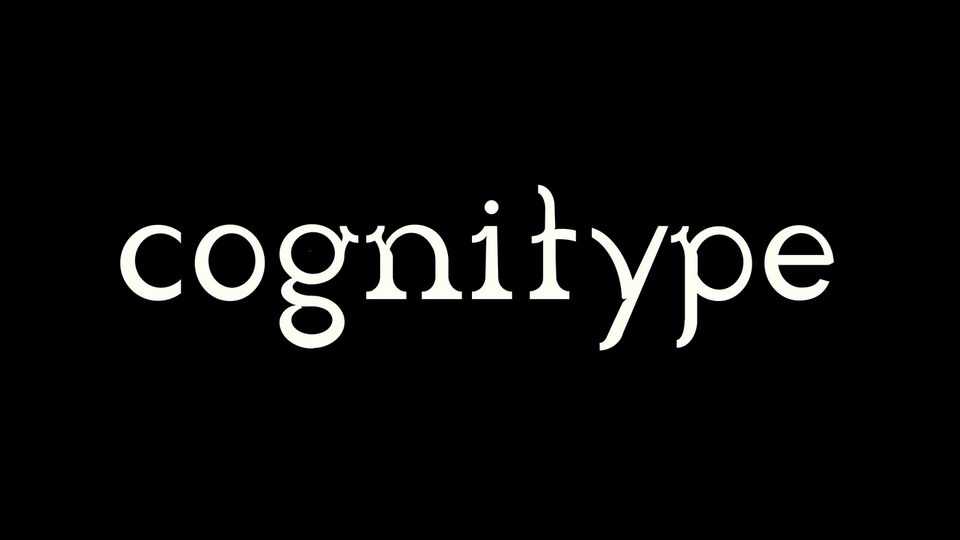
Download Cognitype font, an experimental typeface designed to bring the hyperconnectivity of the letters to its paroxysm, by basing the drawing of letters on various theories.
Designer: Cyril Kimmerlin